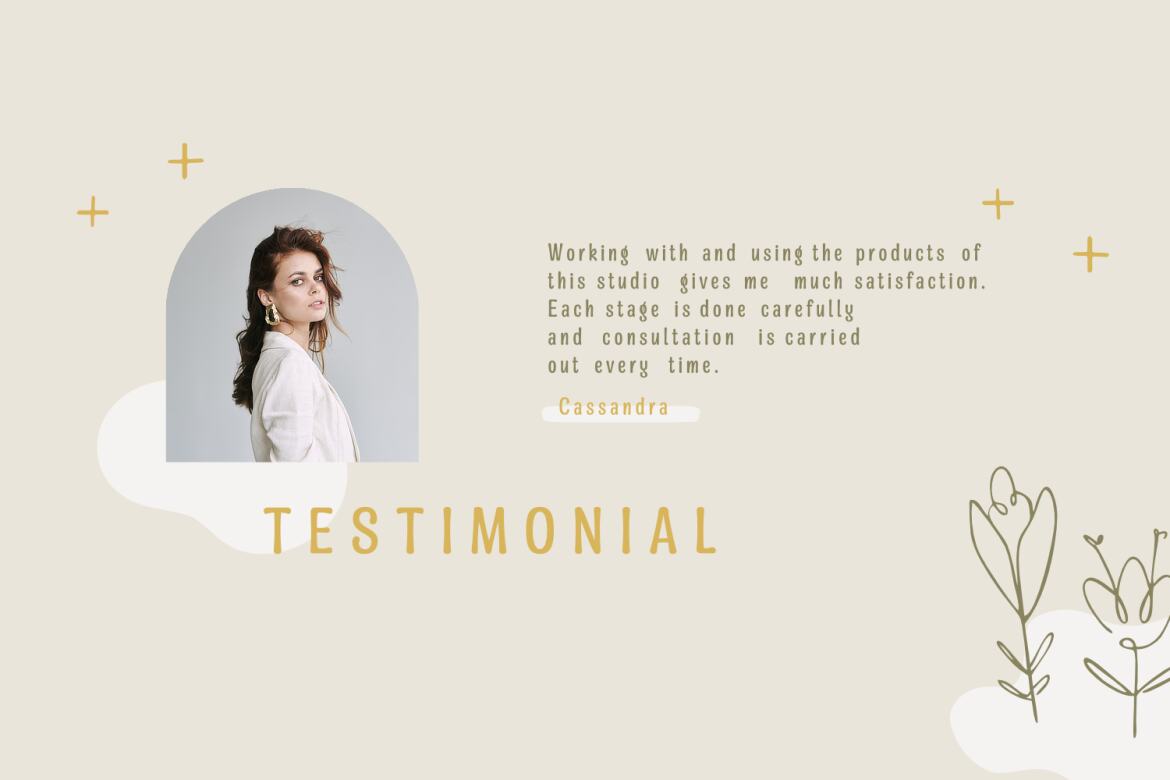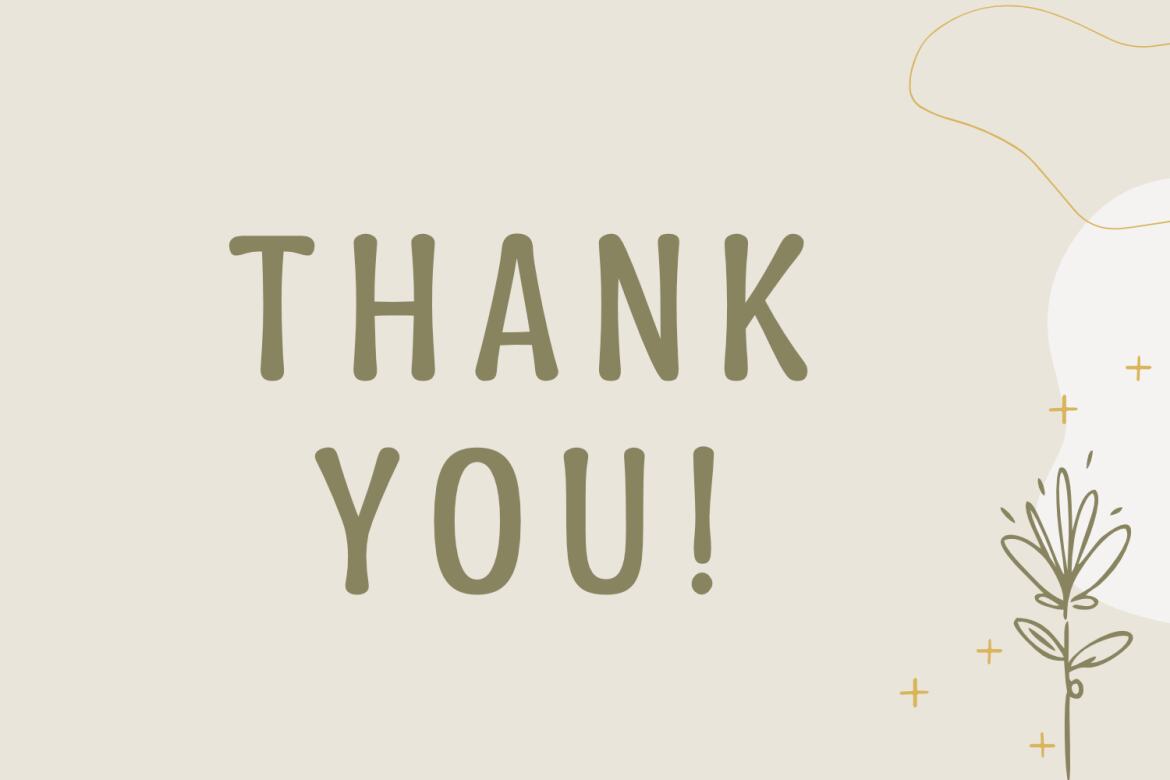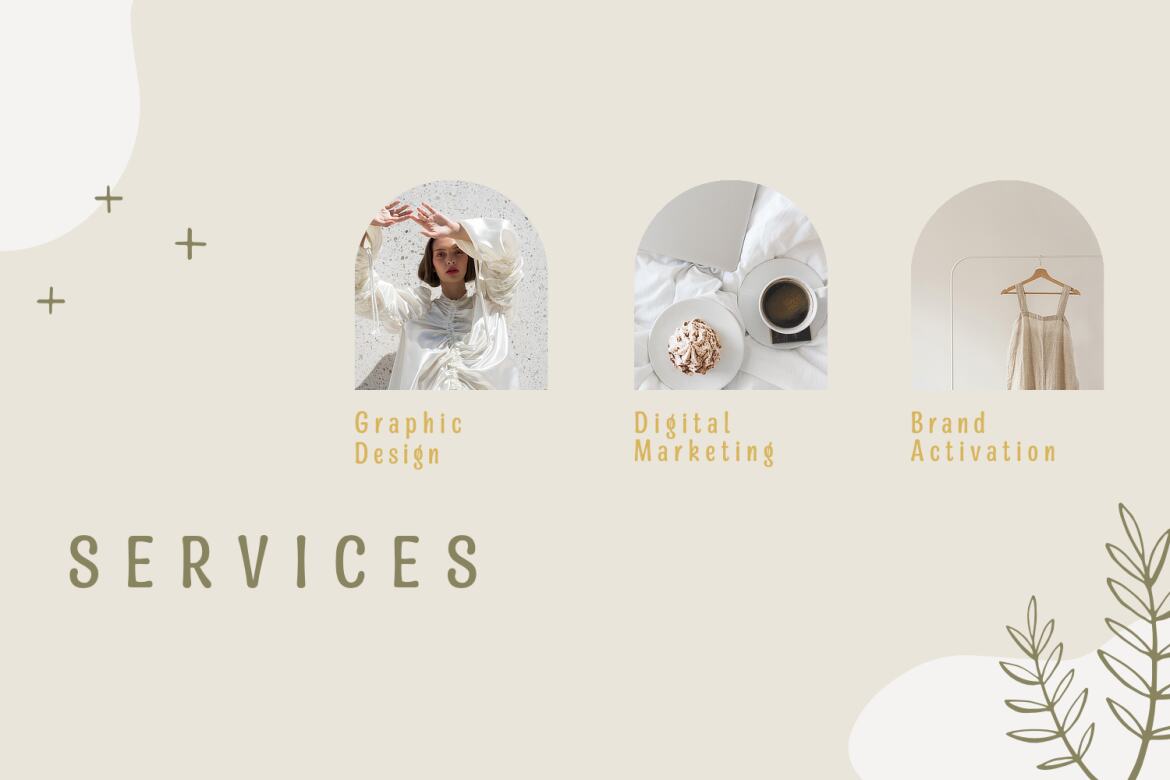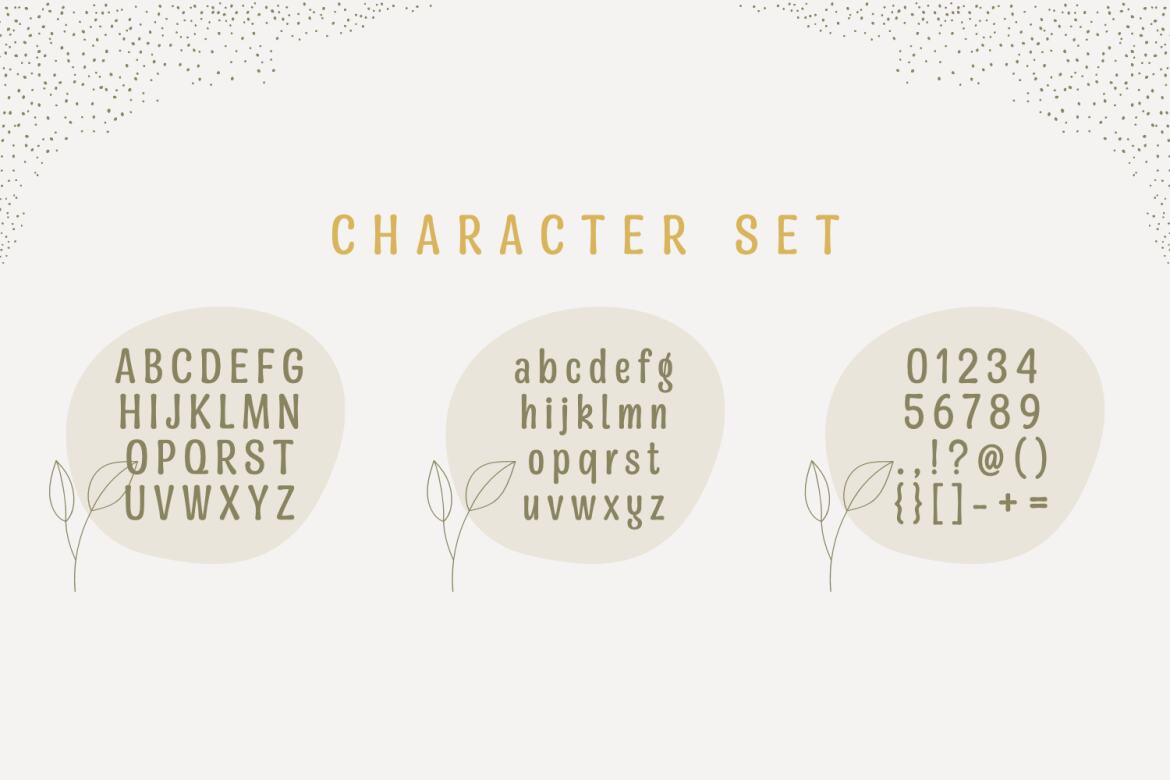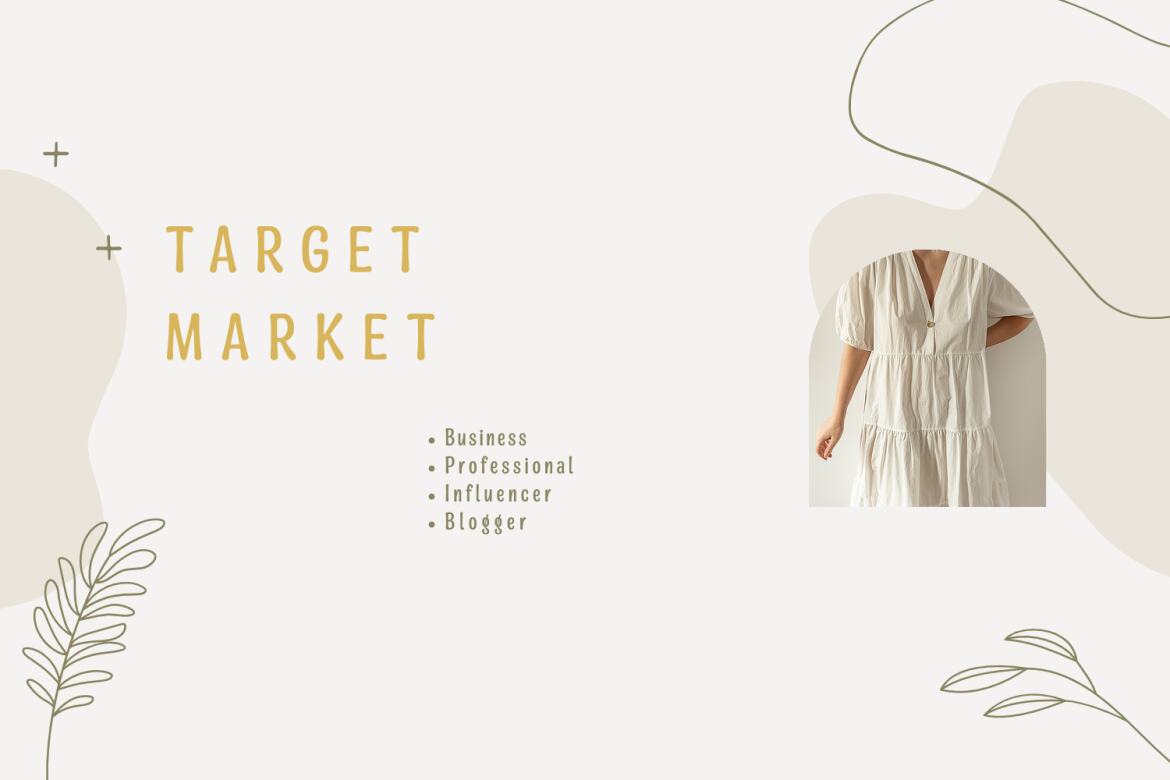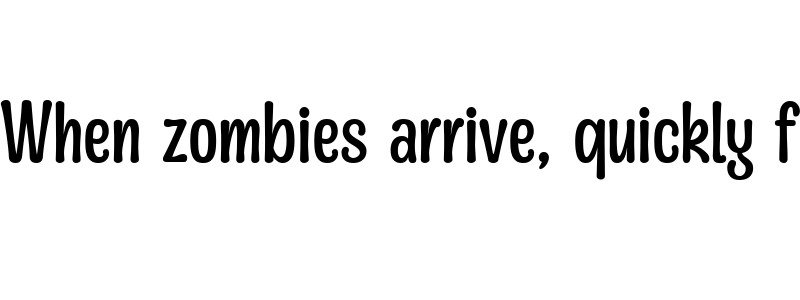
Mangabey - a Fancy FREE Font
Mangabey is a fancy font with a touch of retro style. Mangabey is very easy to implement in various designs and makes the design more outstanding. This font is very suitable for branding, logos, banners, and all kinds of designs.